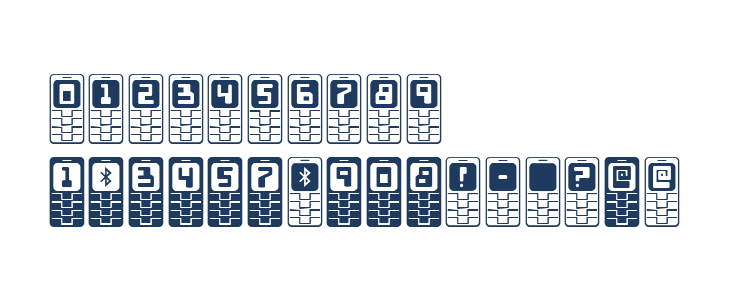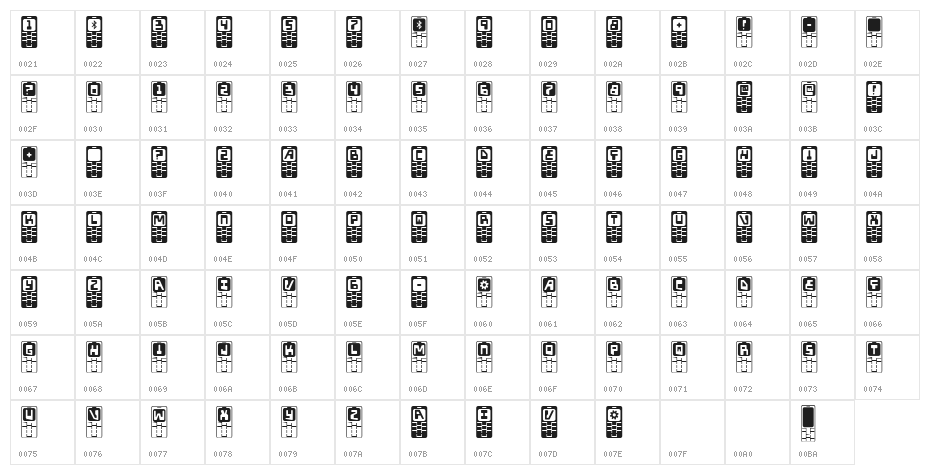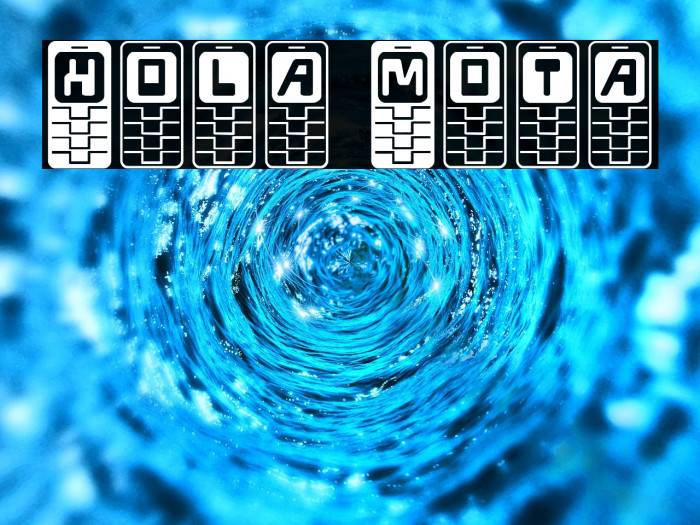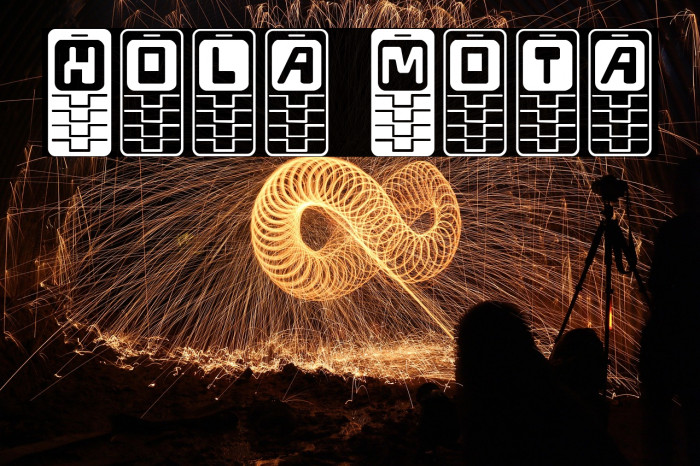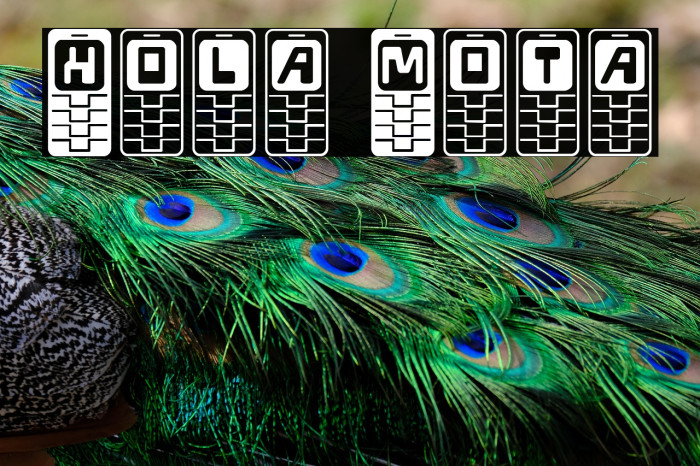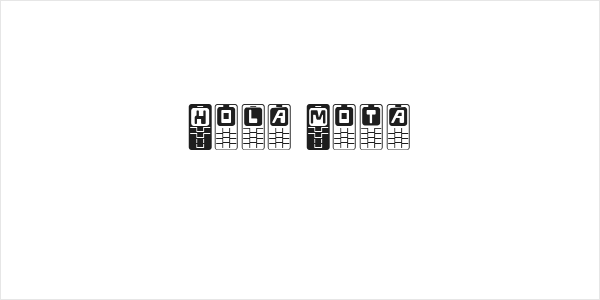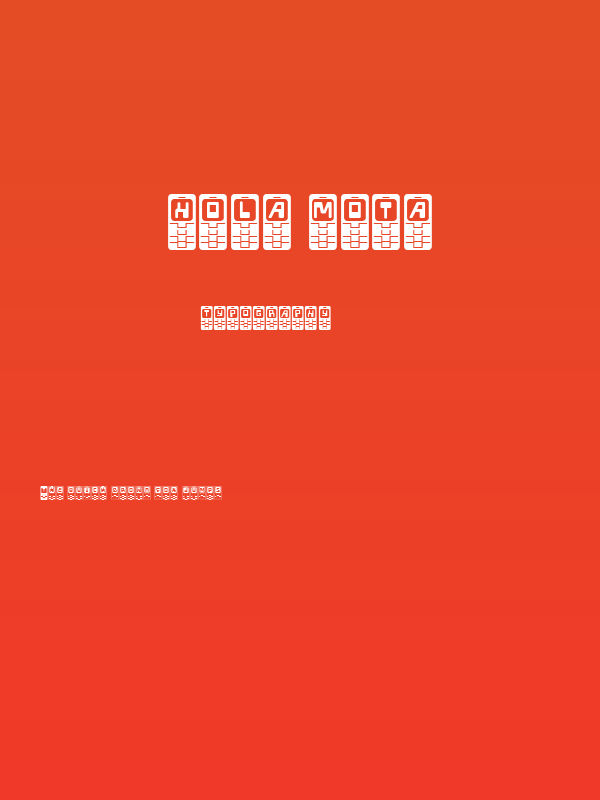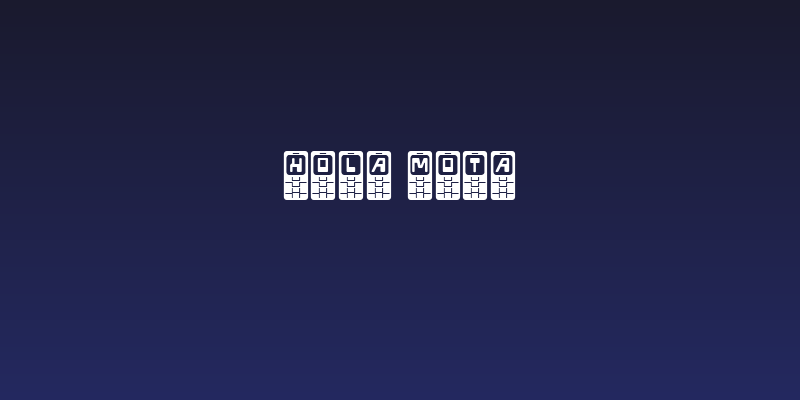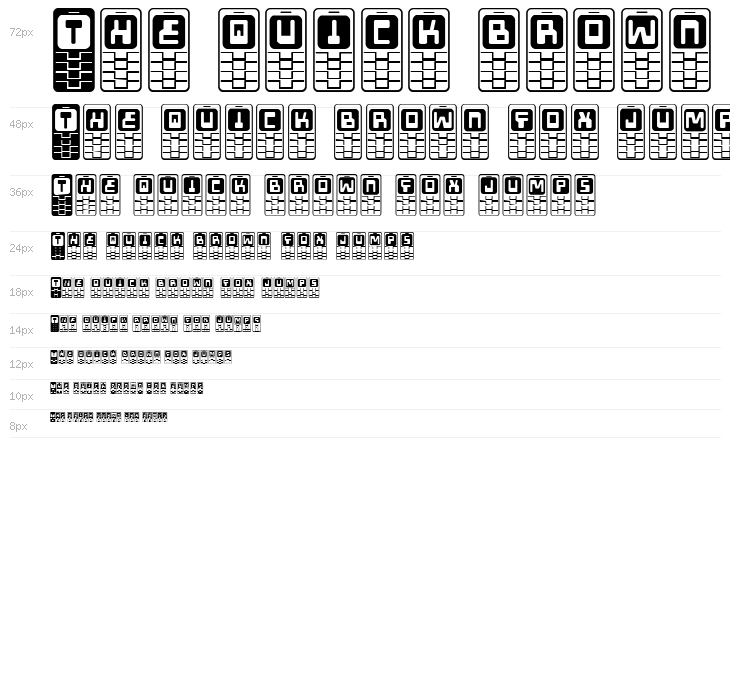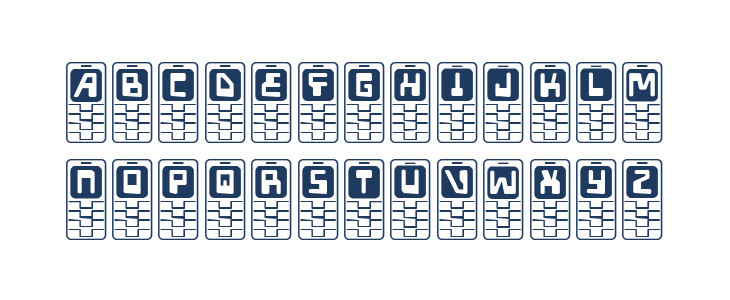
Hola Mota Font
Hola Mota Description
This font features a bold, geometric design with each character enclosed within a rounded rectangle, reminiscent of a mobile phone interface. The characters are uppercase and lowercase letters, numbers, and a selection of special symbols. The style is highly modern and digital, with a strong emphasis on symmetry and uniformity. The strokes are thick and consistent, contributing to a high contrast appearance. The enclosed design gives each character a distinct, isolated look, making it suitable for digital and tech-themed projects.
| Use Case | Logos, Headlines, Digital Interfaces |
| Proposed Projects | Ideal for tech-themed designs, digital interfaces, app logos, and modern branding projects. |